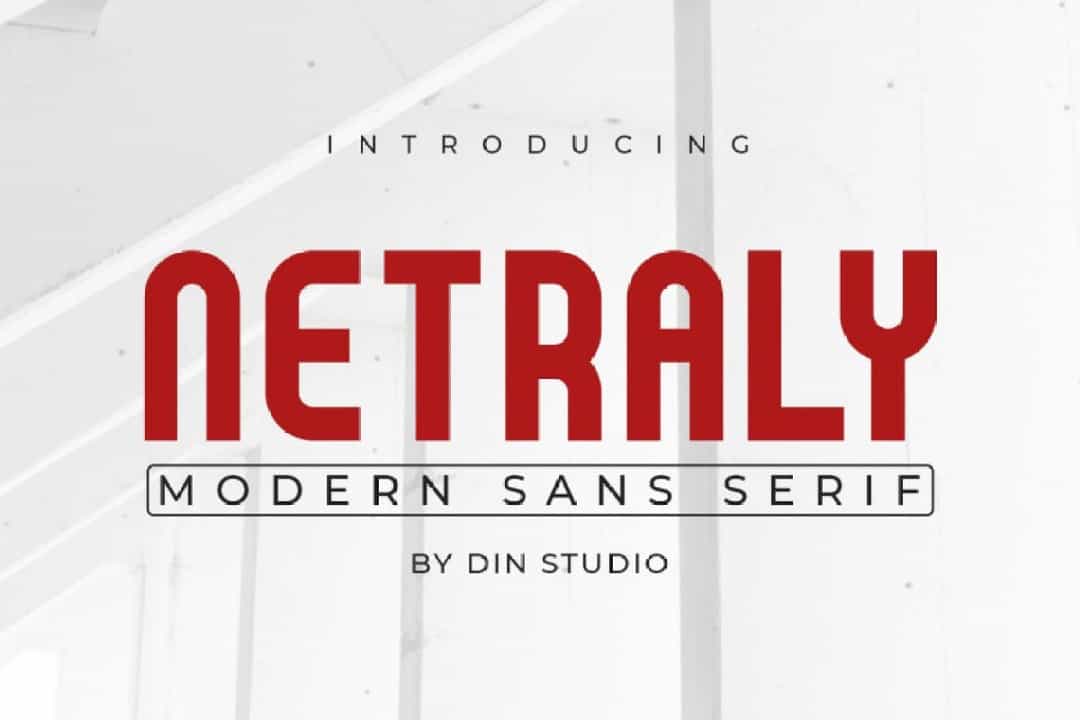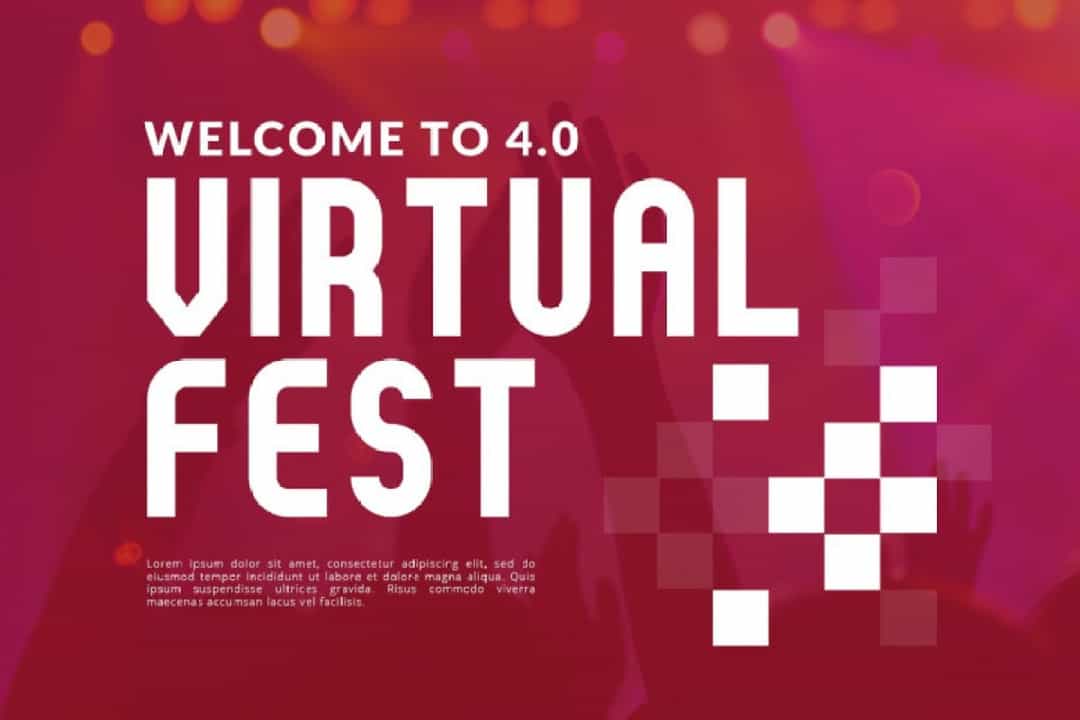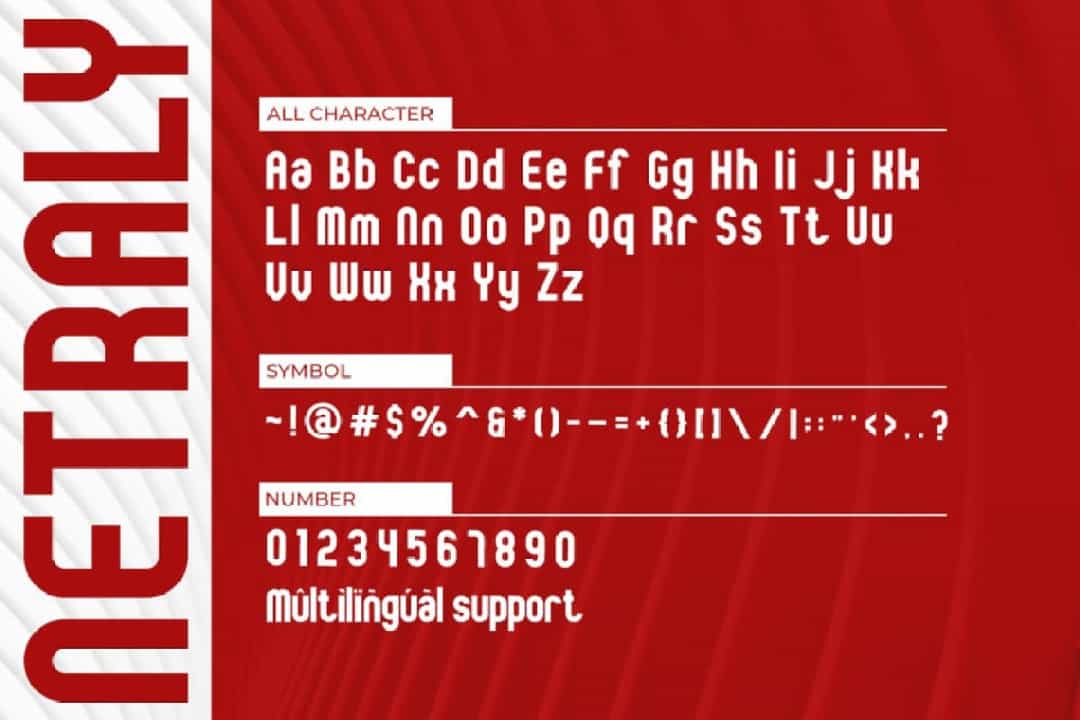
Netraly is a new type face that belongs to the sans serif category of type faces. It is a font that has uppercase numbers, lowercase and uppercase punctuations, and different styles of each character, including multilingual. This font is appropriate for any business use in branding. It is suitable to print, logo and inscriptions. Every letter is stylized in a unique and beautiful way.